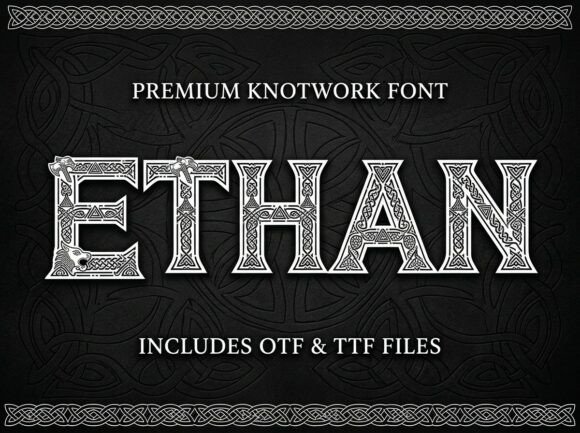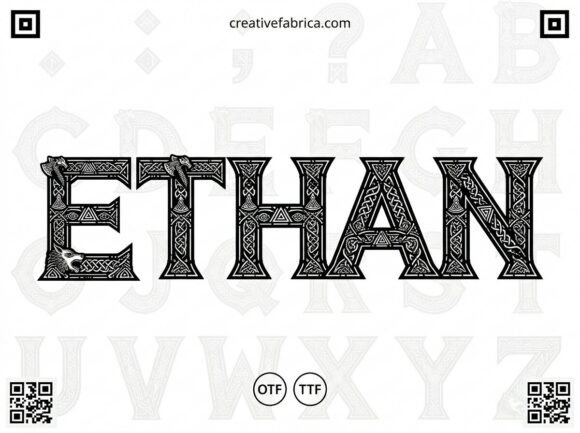
The Ultimate Guide to Ethan Font: Elevate Your Designs with a Stunning Decorative Display Font
I’ll never forget the moment I stumbled upon a font that completely transformed my design project. I was working on a branding campaign for a luxury client, and I was struggling to find the perfect font that would convey their high-end message. That’s when I discovered Ethan Font, a stunning decorative display font that instantly caught my attention. In this article, I’ll share my experience with Ethan Font, its features, and how to make the most of it in your designs.
An Honest Review of Ethan Font
Ethan Font is a game-changer for designers who want to add a touch of sophistication and creativity to their work. Here’s what I love about it:
- ✨ Unique artistic elements that make it stand out from other fonts
- ✅ Strong visual personality that’s perfect for bold headlines and artistic logos
- 💯 Versatile enough for various design applications, from packaging to signage
- 👍 Professional and polished finish that elevates any design
However, there are a few quirks to be aware of:
- ⚠️ Ethan Font is an ALL-CAPS (Uppercase Only) display typeface, which means it doesn’t include lowercase letters.
- 🤔 While it’s perfect for high-impact headlines and decorative initials, it may not be the best choice for body text or lengthy content.
The Backstory Behind Ethan Font
Ethan Font was designed with the intention of creating a unique and eye-catching display font that would make a statement. The designer aimed to craft a font that would be perfect for high-impact headlines, logos, and decorative initials. With its strong visual personality and artistic elements, Ethan Font is sure to elevate any design project.
| Is Ethan Font suitable for body text or lengthy content? | No, Ethan Font is designed for high-impact headlines and decorative initials, and may not be the best choice for body text or lengthy content. |